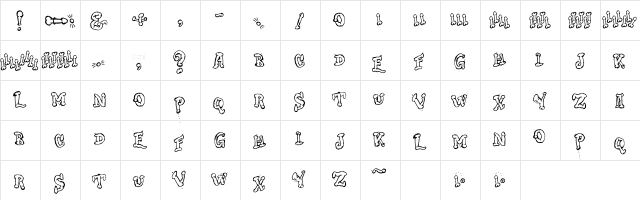
DongCasual Roman
Design Context for DongCasual Typeface
DongCasual is a composed and adaptable typeface that performs quietly and consistently across a wide range of design contexts.